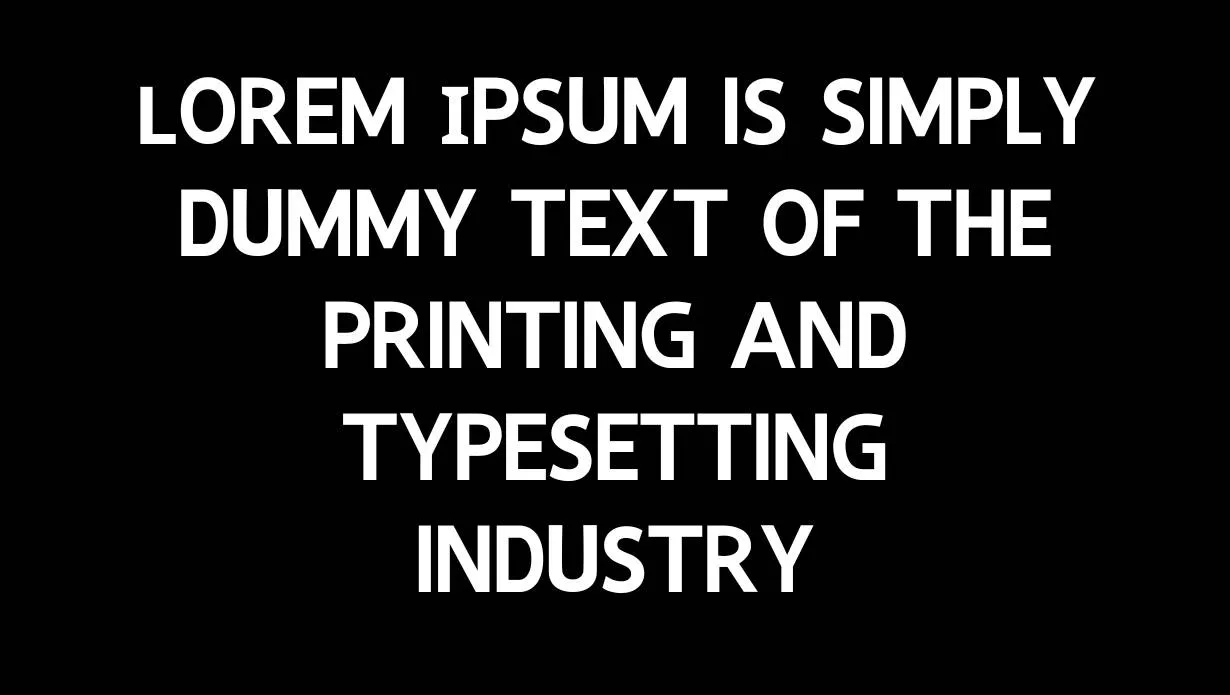
Vertexio Font is a very attractive, neat, and clean font with high readability. It is perfect for making all projects.
It was designed by Dhvanil Patel. You can use it for advertisement and social media posts. For attractive YouTube thumbnails for channels, it is a suitable choice.
You can also use it for pairing with other fonts like epitet font for a more attractive look.
| Name | Vertexio Font |
| Designer | Dhvanil Patel |